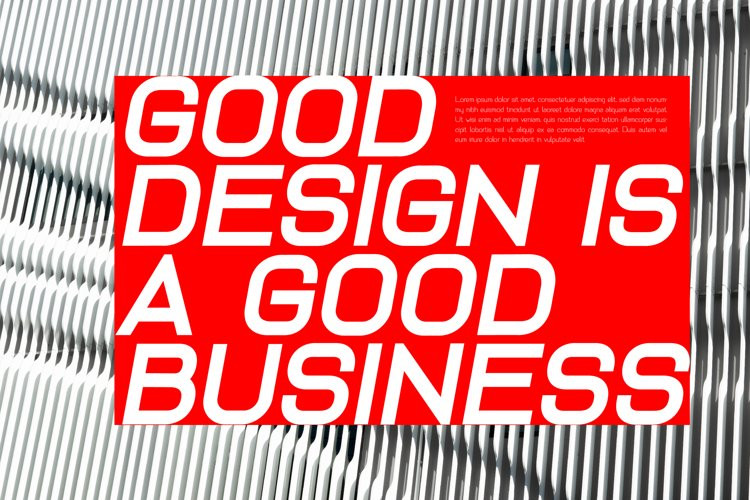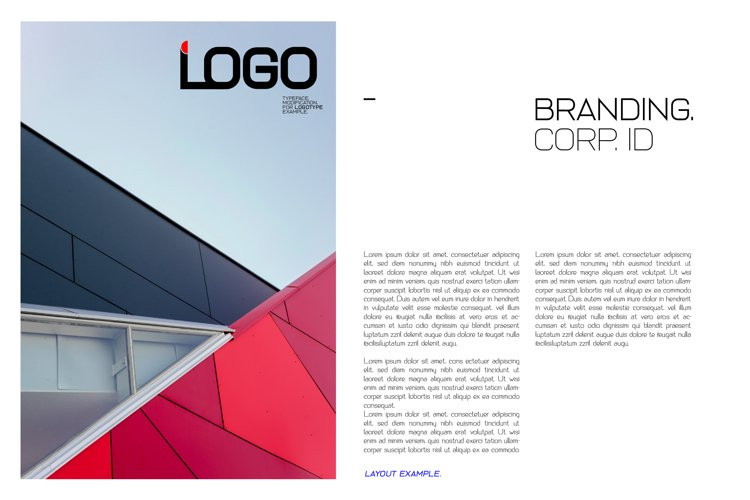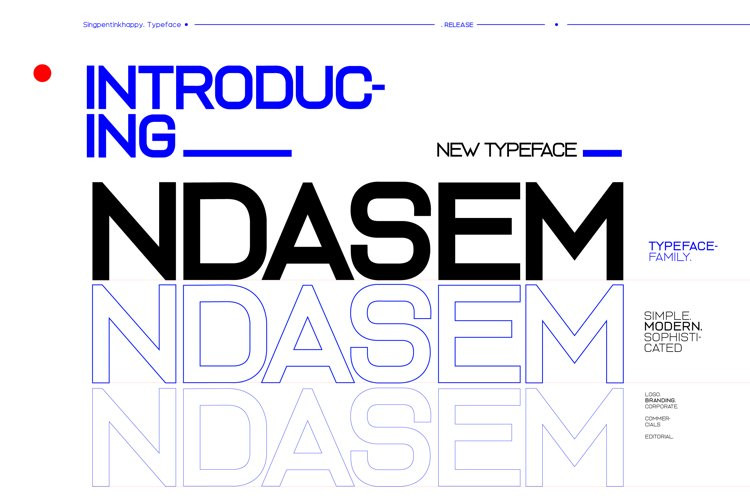
Ndasem Font
Ndasem FontNdasem is great for branding, logo, editorial, fashion, design, travel, and for graphic design typography experiment will very interesting.